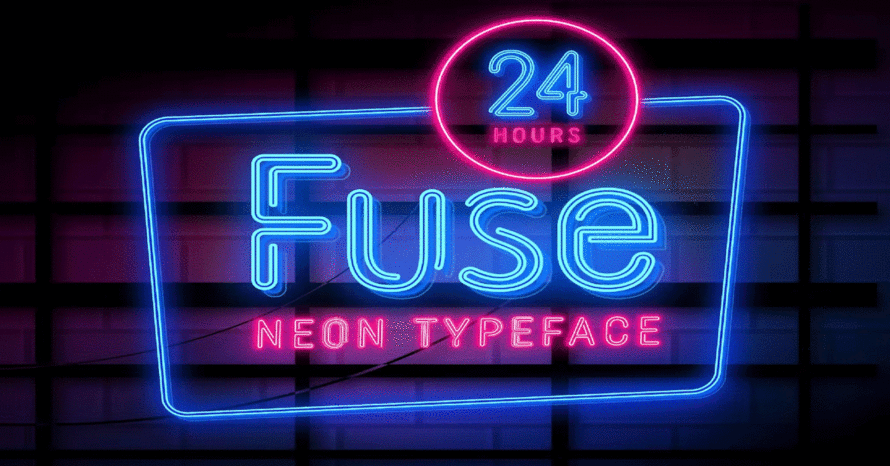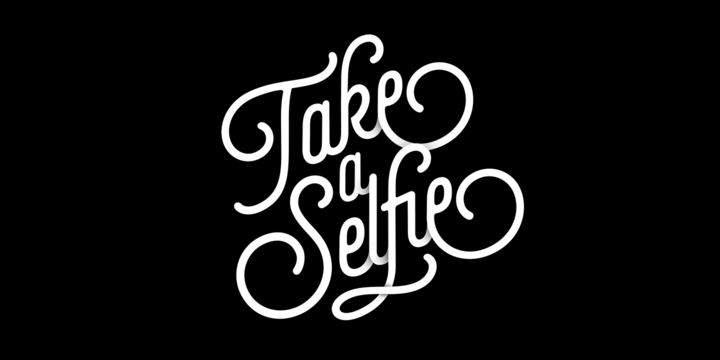
What is fascinating about neon fonts is that any font could turn into a glowing, hot pink sign if you are a skilled enough designer. Perfecting the stretch of the glow and precision of the inside text is a fascinating balance. The standard serif could turn heads in front of a nightclub with enough pizazz. However, there are some quintessential elements to neon signs that many recognize, which we will analyze today.
You could design for a restaurant, dog-grooming service, or upscale night club. It doesn’t matter because neon is truly timeless. These neon fonts will provide that classic, 80’s vibe you’re going for, especially if you have a client looking to light up their customers with intrigue and excitement.
1. Bayshore
It is easy to imagine this font as shining glass tubes. Bayshore has the informal, handwritten vibes that give it an easy-on-the-eyes feel. It is stylized enough to where it won’t confuse readers, and vanilla enough to be used for designs outside of neon. You could easily see this as the title for a retro film or spread out across the chest on an awesome band tee.
2. Neon Lights
You can’t get more on the nose than a font called Neon Lights. This font has a more angular, bubble-letter look. To make it interesting, it has appealing lines in letters like G and N. The font has special characters like several currency symbols and letters with every accent you could ask for. There are no lowercase options in this font set, but why would you want them when the font stands out so gloriously in capital letters?
3. Neonisans Monoline
If you’re comparing the first two fonts on this list, this is a delightful blend of both. It isn’t angular as you would expect certain neon sights, but it has defined lines with nice curves to make it modern — as the name suggests — while being nostalgic. It has upper and lowercase options that seamlessly connect through lower lines. This font is perfect for translating into an actual neon sign. The numbers and special characters do not do this, but if you’re using this font to make an actual sign, it should make the process simpler.
4. Selfie
The bold and curvy lines of Selfie would make a memorable neon font design. Though most of the images demonstrate the font slanted, it is flexible. Use this to craft a flyer for an upcoming coffee shop gig or an ad for the front pages of your website discussing your next sale. The extended font family for commercial use includes Selfie Light, Standard, Black, Printed, and Flag variants.
5. Lost Wages
Lost Wages brings the tube-like style mixed with a little space-age inspiration. It comes at sharp angles with sweeping curves. A straight line above the lowest point pierces the letters for an eye-catching look. The pack has fewer special characters — only the lone ampersand. However, it has a variety of accented letters so you can craft a sci-fi book jacket or thematic restaurant sign with this hip neon font.
6. Hastron
This unassuming script font looks like it could be in the same family as Bayshore but with thinner lines. Hastron is not as wide as some other neon fonts, giving you more options for utilizing space. The cursive handwriting is perfect for beachy tourist attractions or as a header for a website.
7. Fuse
The image for this font says it all — it looks great in every color, especially with the rectangular border on it to highlight its style. The gaps and multi-line design makes it one of the more unique options on this list. Because of the way it’s laid out, even lights won’t blur its edges.
8. Neon Ballroom
Neon Ballroom is like the sibling to Fuse, but it is filled in. It also takes a more modern twist with the cut-off lines within letters, creating more distinct visuals. Because of this layout, it is easy to conceptualize how the colors would radiate from the center lines to give that neon font aesthetic you’re going for.
9. Zapped Sticks
Imagine neon lights stacked on top of each other — there you have the appropriately jazzy Zapped Sticks. Despite its trippy appearance, when you put lights around the letters, it shines wonderfully and distinctively. The layered effect provides a pop to standard neon fonts, making it jump off the page with more dimension — especially if you’re using this in print or digital mediums.
10. Lineat III
Lineat III is ready to provide neon lights to every industry. The design is intended for everyone, from sports and entertainment to industrial niches. The fun-filled lines end in sharp corners like a curling wave to give it more nuanced interest. The font looks good surrounded in neon colors and lights or plain and by itself.
11. Yasemin
This font is more decorative than your standard swirling, script fonts. It has an edge appearance. Letters have lingering lines, extending some across the length of the word. Some of the tails interweave and all of the capital letters have curls that wrap around the left side. Imagine this font on a stylish business card or gift bag, and it would grip anyone’s attention.
Jazz Up Creations With Neon Fonts
Neon fonts are a solid, thrilling choice for appropriate designs. With a few curves, a gentle script could provide a flashy elegance. More squared-off edges give that futuristic aesthetic a client might crave. Whatever the mission, these neon fonts deliver variety and inspiration, whether you’re making a traditional sign or an innovative banner ad. If you’re feeling adventurous, consider adding an animation to make the font glow literally as viewers enjoy its radiance.